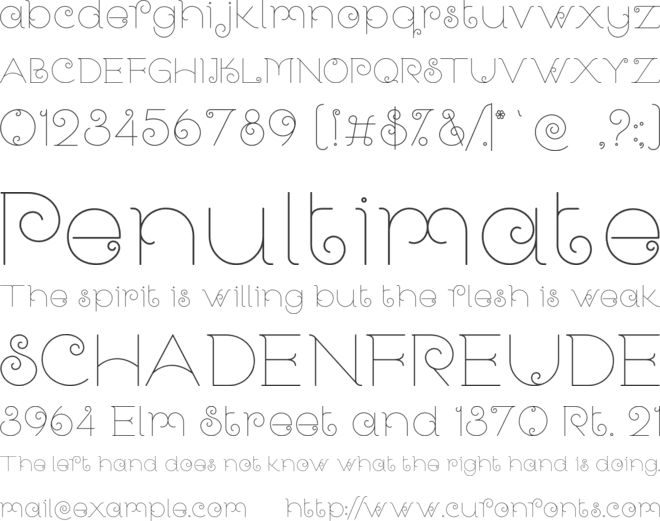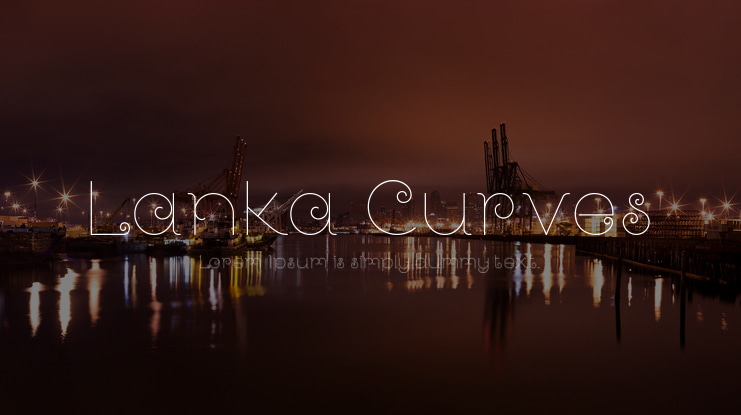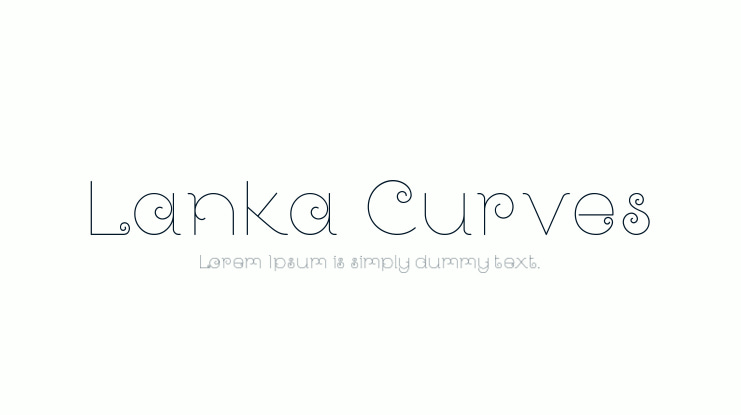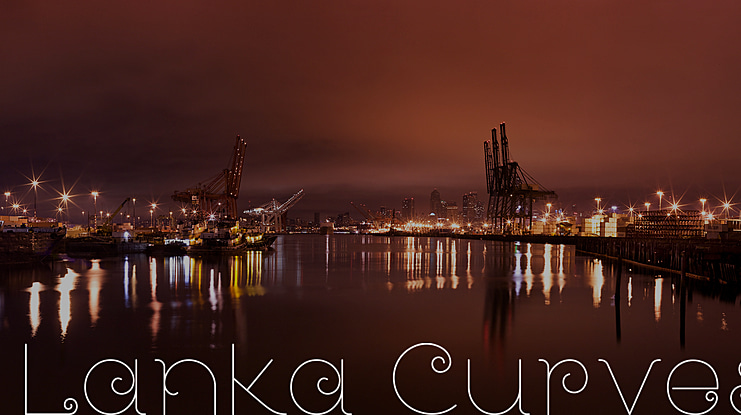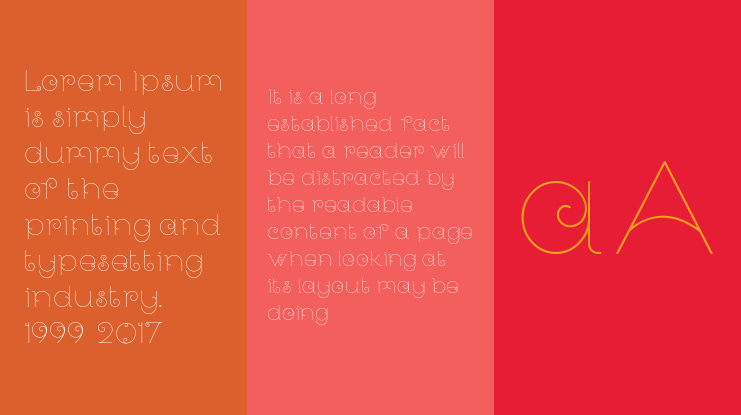
Lanka Curves Font
Thilanka Weerawardana
Lanka Curves by Thilanka Weerawardana
In the Sinhala Art alphabet, the teacher will initially give the Wakadeka design (two-tone pattern) first. That pattern made out of curve shapes. The student should tune it up properly until he practices his hand. LANKA CURVE.TTF typeface is dragged as it exposes the shapes in traditional Sri Lankan designs. Download & enjoy my fonts for your creative works. Please contact me when you using it for business purposes. Good Luck!